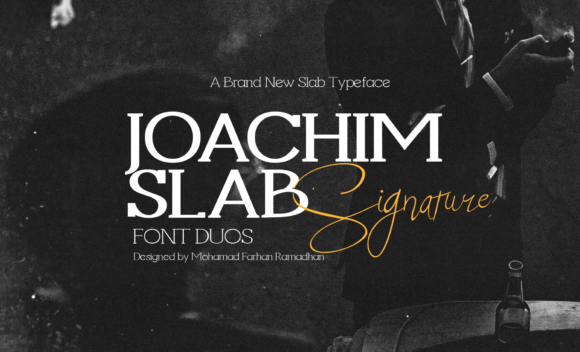
Experience the Sophistication of Joachim Slab Font: Elevate Your Designs with Modern Elegance
In the realm of typography, few fonts manage to strike a balance between modern sophistication and timeless elegance. Joachim Slab, a dual-style typeface, is one such exceptional find that effortlessly infuses a refined aesthetic into every design it touches. With its unique signature style and handcrafted allure, Joachim Slab has become a go-to choice for designers looking to imbue their projects with a touch of class and distinction.
The Distinctive Features of Joachim Slab
Joachim Slab’s versatility is one of its most compelling attributes, offering distinct versions in regular, bold, and signature styles. This range allows designers to select the perfect weight and flair for their projects, whether it’s rebranding a company, creating eye-catching movie posters, designing book covers that turn into conversation pieces, crafting headlines that command attention, or bringing album covers and logotypes to life.
Regular, Bold, and Signature Styles
The regular style of Joachim Slab offers a clean and modern look, perfect for body text and creating a solid foundation for any design. The bold version steps up the ante, providing a strong and assertive presence ideal for headlines, titles, and anywhere a designer wants to draw attention. Lastly, the signature style injects a dose of personality and elegance, perfect for adding a unique touch to designs that require a bit more flair.
Applications of Joachim Slab
The adaptability of Joachim Slab is one of its most significant advantages. Its range of applications is vast, making it a valuable asset for designers across various industries.
Reinventing Brand Identities
For brands looking to refresh their image or establish a strong visual identity from the outset, Joachim Slab offers a sophisticated and contemporary solution. Its clean lines and elegant curves can help convey a sense of professionalism and reliability, essential qualities for any business aiming to make a positive impression on its audience.
Gracing Movie Posters and Book Covers
In the entertainment industry, capturing the audience’s attention is paramount. Joachim Slab, with its bold and signature styles, can play a pivotal role in creating movie posters and book covers that stand out. Its ability to convey drama, elegance, and intrigue can significantly contribute to a project’s success by piquing the interest of potential viewers or readers.
Commanding Attention on Headlines
Headlines are crucial in grabbing the reader’s attention and conveying the essence of a story or message. Joachim Slab’s bold style is particularly effective in this context, offering a commanding presence that can draw the reader in and emphasize the importance of the content.
The Soul of Album Covers and Logotypes
Music and branding are areas where typography plays a critical role in identity and aesthetic appeal. Joachim Slab, with its unique blend of modernity and elegance, can serve as the soul of album covers, bringing an artist’s vision to life, and logotypes, encapsulating a brand’s essence in a simple yet profound way.
The Refined Dynamism of Joachim Slab
One of the defining characteristics of Joachim Slab is its refined dynamism. This term captures the font’s ability to bring a sense of energy and movement to designs without sacrificing elegance or readability. It’s a delicate balance that Joachim Slab achieves with remarkable success, making it an invaluable tool for designers seeking to create visually compelling work.
Carving a Unique Visual Identity
In a world where visual content is king, establishing a unique visual identity is crucial for any brand, artist, or designer looking to leave a lasting impression. Joachim Slab, with its sophisticated aesthetic and versatile styles, offers the perfect means to achieve this. By incorporating Joachim Slab into their designs, creatives can ensure their work stands out in a crowded marketplace, resonating with their audience on a deeper level.
Joachim Slab is more than just a typeface; it’s a design statement. Its blend of modern elegance, handcrafted allure, and versatile styles makes it an exceptional choice for a wide range of applications. Whether you’re looking to reinvent a brand identity, create captivating movie posters, design engaging book covers, craft compelling headlines, or bring album covers and logotypes to life, Joachim Slab offers the tools to elevate your designs and carve a unique visual identity. Experience the sophistication and sublime aesthetic of Joachim Slab and discover how it can transform your designs.